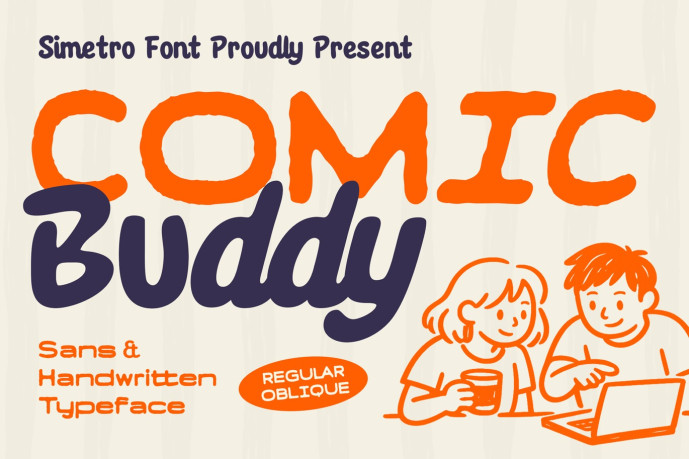
Comic Buddy Font
Comic Buddy Font is a playful and friendly sans-serif handwritten typeface that brings a cheerful, hand-drawn touch to your creative work. With its warm, rounded characters and natural flow, Comic Buddy captures the fun of a comic strip while maintaining excellent legibility, making it perfect for a lively, accessible, and eye-catching aesthetic.
Designed to be both expressive and versatile, Comic Buddy is available in regular and slanted styles, including a full set of uppercase and lowercase letters, numbers, and punctuation. Whether you’re working on a children’s book illustration or a dynamic marketing presentation, this font is perfectly suited to both print and digital projects.
Add a touch of friendliness and creativity to your design with Comic Buddy, a font that combines the simplicity of a sans-serif structure with the charm of handcrafted writing.